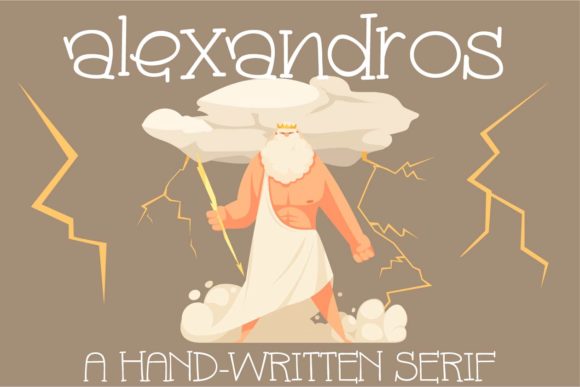
Alexandros, a new kid on the block, is a casual handwritten font that will add a dash of charm to your designs. It's the perfect go-to font for any project, from eye-catching logos to warm and inviting invitations. Alexandros is also a brilliant choice for branding due to its stylish and addictive character. With Alexandros as your secret weapon, you can elevate your designs to new heights and leave a lasting impression on your audience.
Beyond its visual appeal, Alexandros is a powerhouse of versatility. It is the perfect font to add a touch of elegance to your written works, making your words shine on paper or digital screens. Alexandros will help you create captivating social media posts, eye-catching website banners, and even memorable packaging designs.